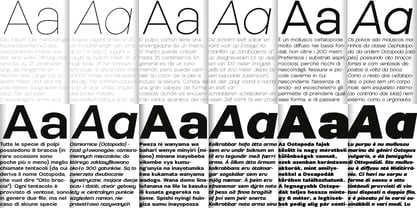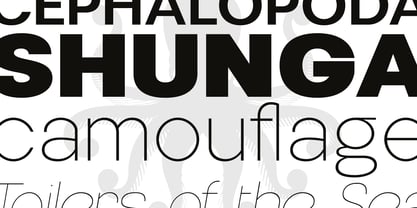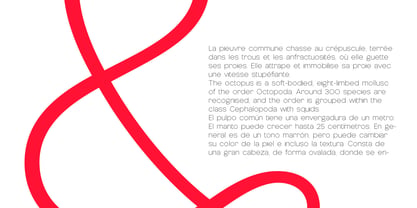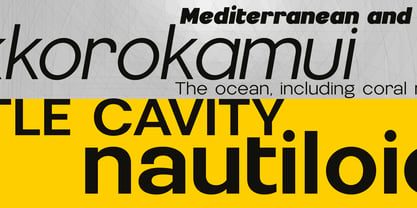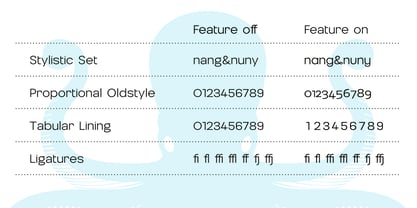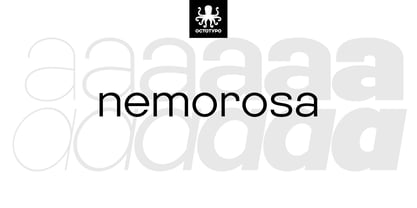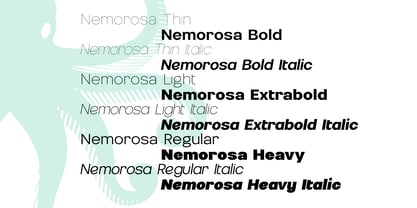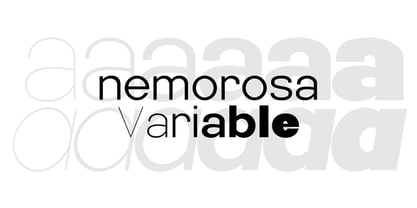
Nemorosa Variable
Nemorosa is a geometric sans-serif with a quiet confidence — and a subtle nod to 1970s type design that gives it an unmistakable warmth. The slightly rounded details, the soft terminals, the way the letterforms breathe: all of it carries that decade's spirit without feeling nostalgic or dated.
The design sits between precision and friendliness, making it equally at home in a magazine spread, a brand identity, or a long-form text setting. Eight weights from Thin to Heavy, each with a matching italic, give designers real flexibility across display and body sizes. OpenType features include stylistic alternates, oldstyle figures, tabular lining numerals, and a full ligature set.
Built for Latin-based multilingual coverage throughout.